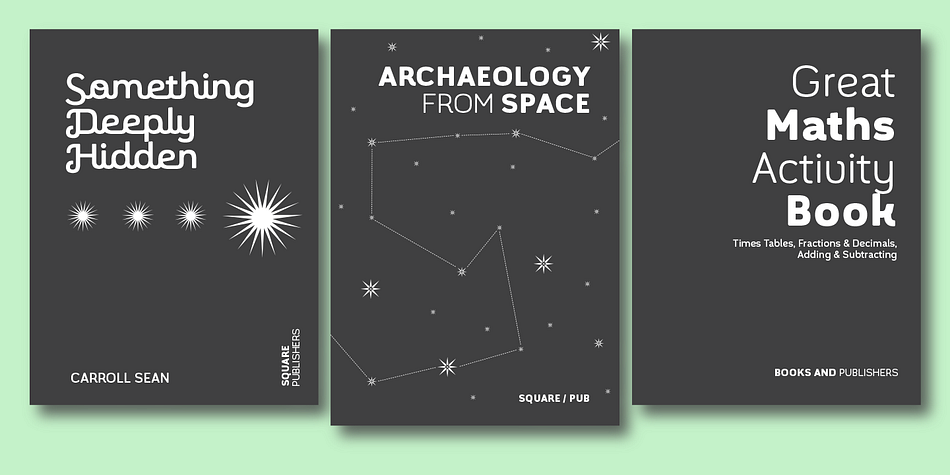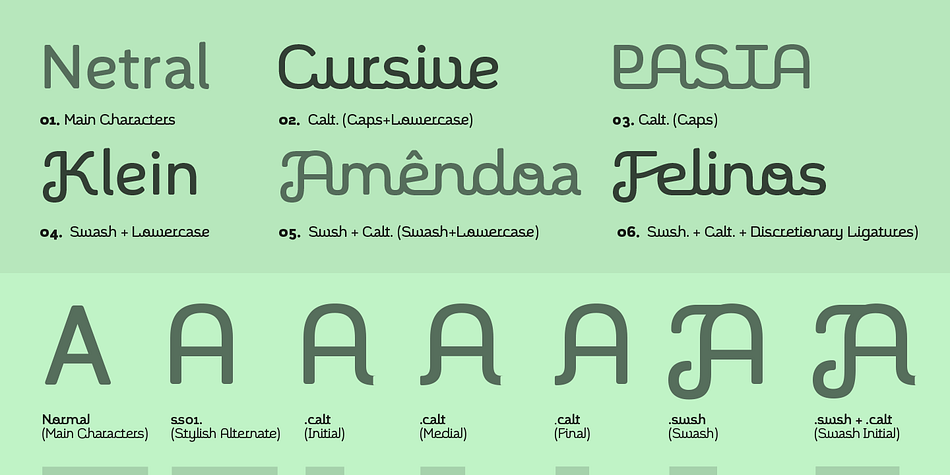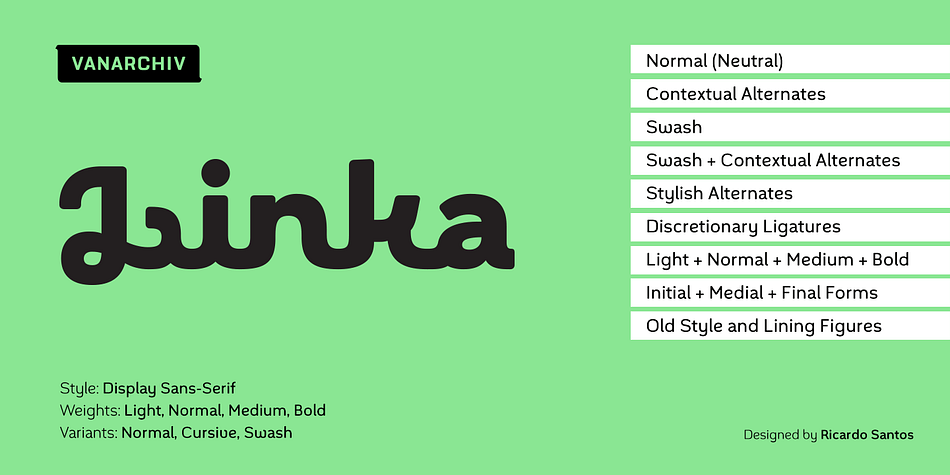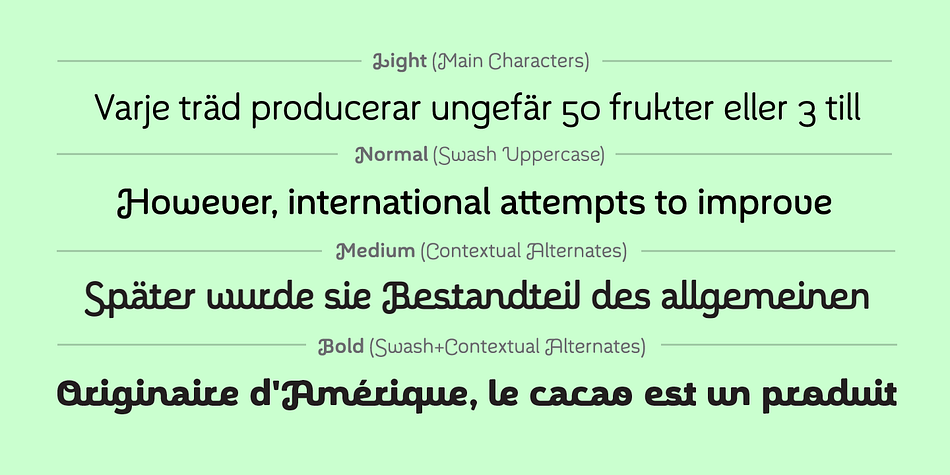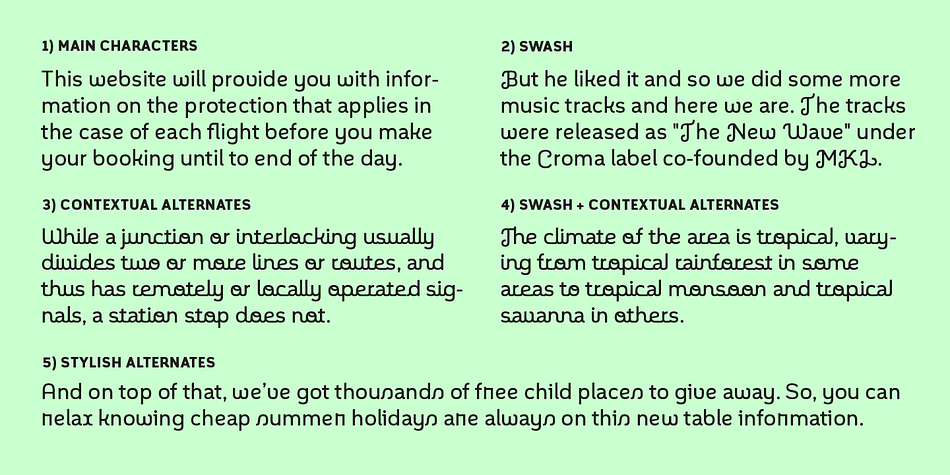
Designed by Ricardo Santos, Linka is a display sans and sans serif font family. This typeface has four styles and was published by Vanarchiv.
This font family is display sans-serif with different stylistic layers available as open type font. The main characters are geometric and neutral but when we change the contextual alternates open type feature the letterforms activate the cursive stylish set. The word composition is divided by initial, medial and final forms, available for all uppercase and lowercase, the diacritics for Latin encodings (Western and central Europe and Baltic countries) are available. However the contextual alternate features (cursive mode) can only work on Adobe CS Indesign and Illustrator softwares. This typeface also has uppercase swash and stylish alternates. A large group of discretionary ligatures are also available to improve better legibility and readability on specific characters combinations.